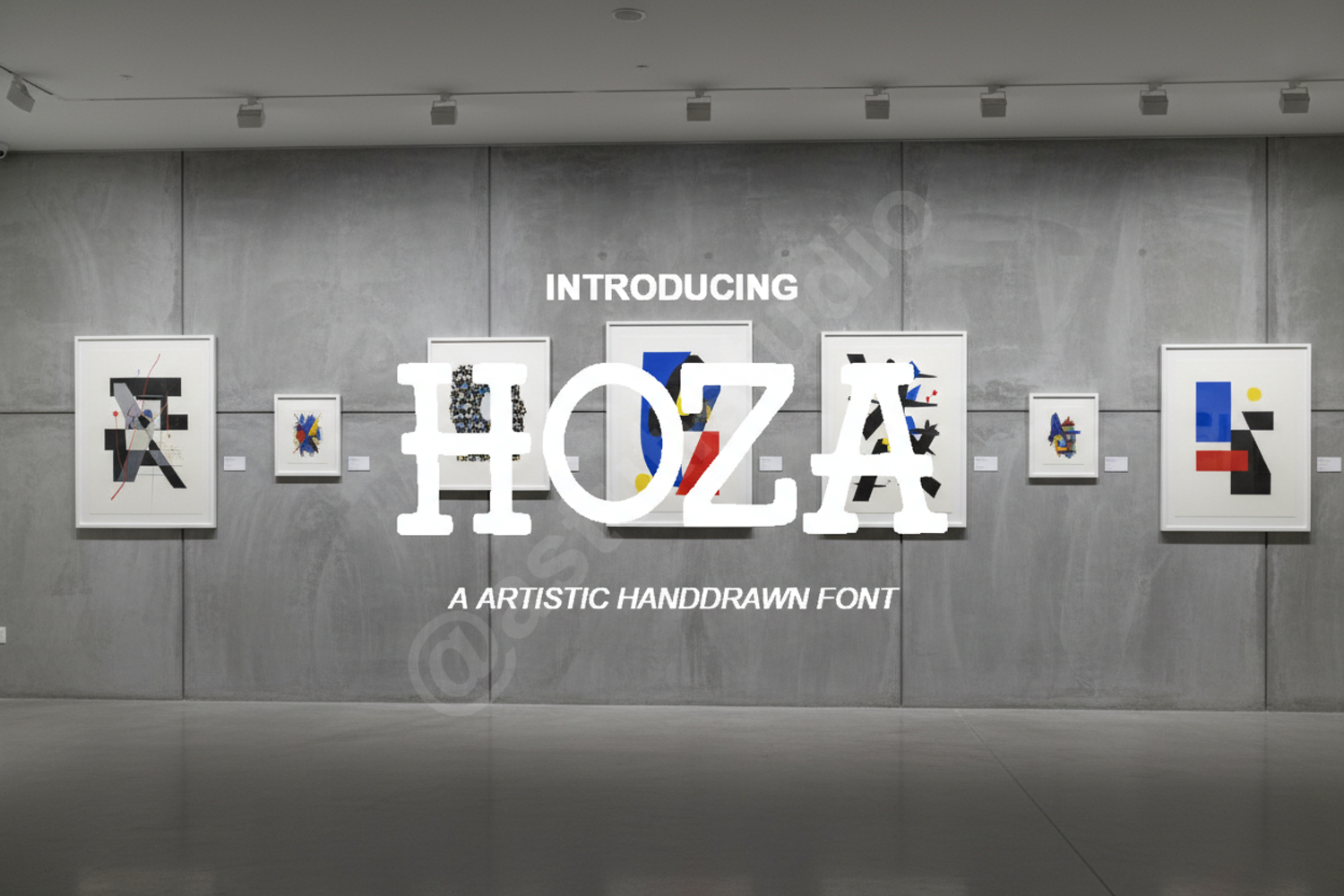
Hoza - Modern Minimalist Display Sans Serif
Hoza
Hoza is a sophisticated and modern display sans-serif typeface designed to bring a touch of elegance and clarity to any creative project. With its clean lines and balanced proportions, Hoza stands out as a versatile choice for designers seeking a premium aesthetic that works across various mediums. Whether you are building a brand from scratch or looking for a clean header font, Hoza delivers professional results every time.
- Full uppercase and lowercase character sets
- Numbers, punctuation, and symbols
- Multilingual support for global accessibility
- Professional Branding and Identity: Create memorable logos and brand marks.
- Digital Marketing: Perfect for high-impact social media graphics and ad banners.
- Web Design: Clean and legible for modern website headers and UI elements.
- Editorial Design: Ideal for magazine layouts, book covers, and posters.
- Packaging: Add a high-end, minimalist feel to product packaging and labels.
- Wedding Stationery: Use for contemporary and chic invitation designs.